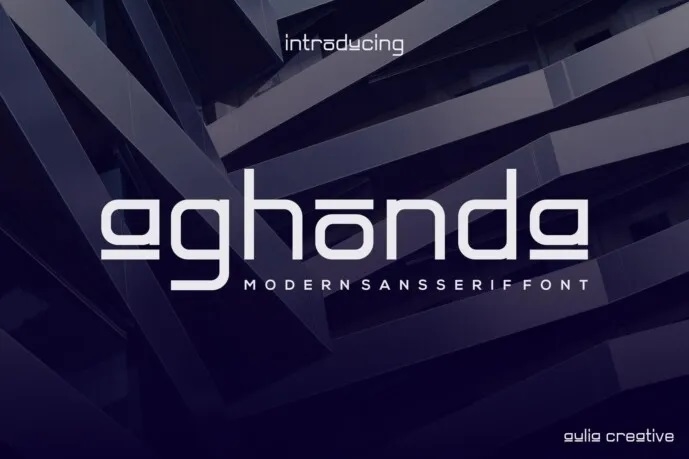
Aghonda Font
Aghonda has been described as a Unique and Modern, Typeface of elegant and authentic display font. It can be applied for logo, badge, insignia, packing, headline, poster, tshirt/apparel, greeting card, wedding invitation, etc.
Aghonda Sans Serif Font